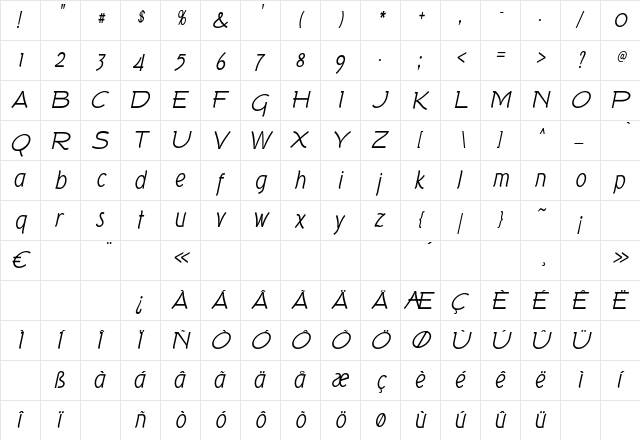
Tork Italic
Design Context for Tork Typeface
Tork offers clean, dependable letterforms without strong stylistic allegiance, making it a practical choice for designers who need flexibility. Its italic angle brings a sense of urgency and motion to the letterforms.
Pro Tip: Try Tork for annotation and caption copy alongside an upright companion — the contrast in angle creates a dynamic but ordered typographic system.